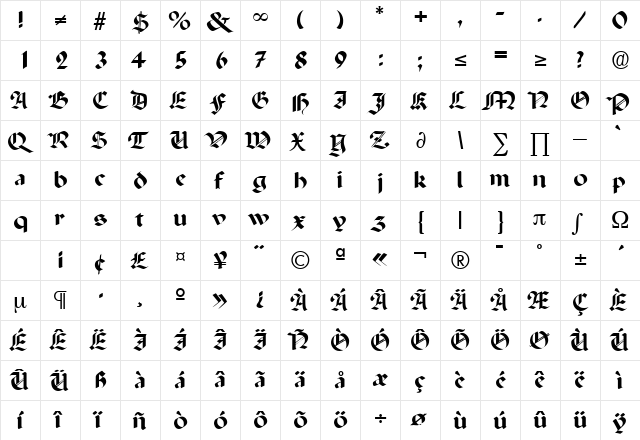
Paladin Medium
Design Context for Paladin Typeface
Paladin is a composed and adaptable typeface that performs quietly and consistently across a wide range of design contexts.